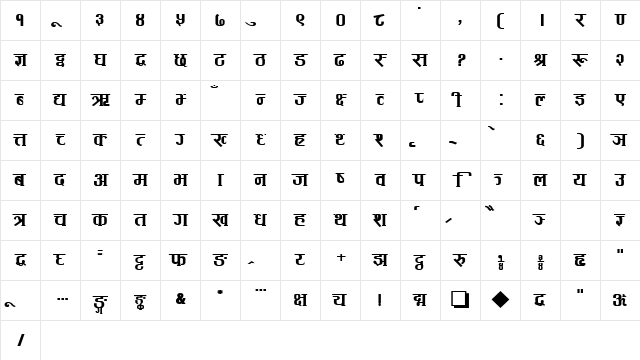
Gadhabold Regular
Design Context for Gadhabold
Gadhabold is a composed and adaptable typeface that performs quietly and consistently across a wide range of design contexts. Its bold stroke weight gives it real presence on the page.